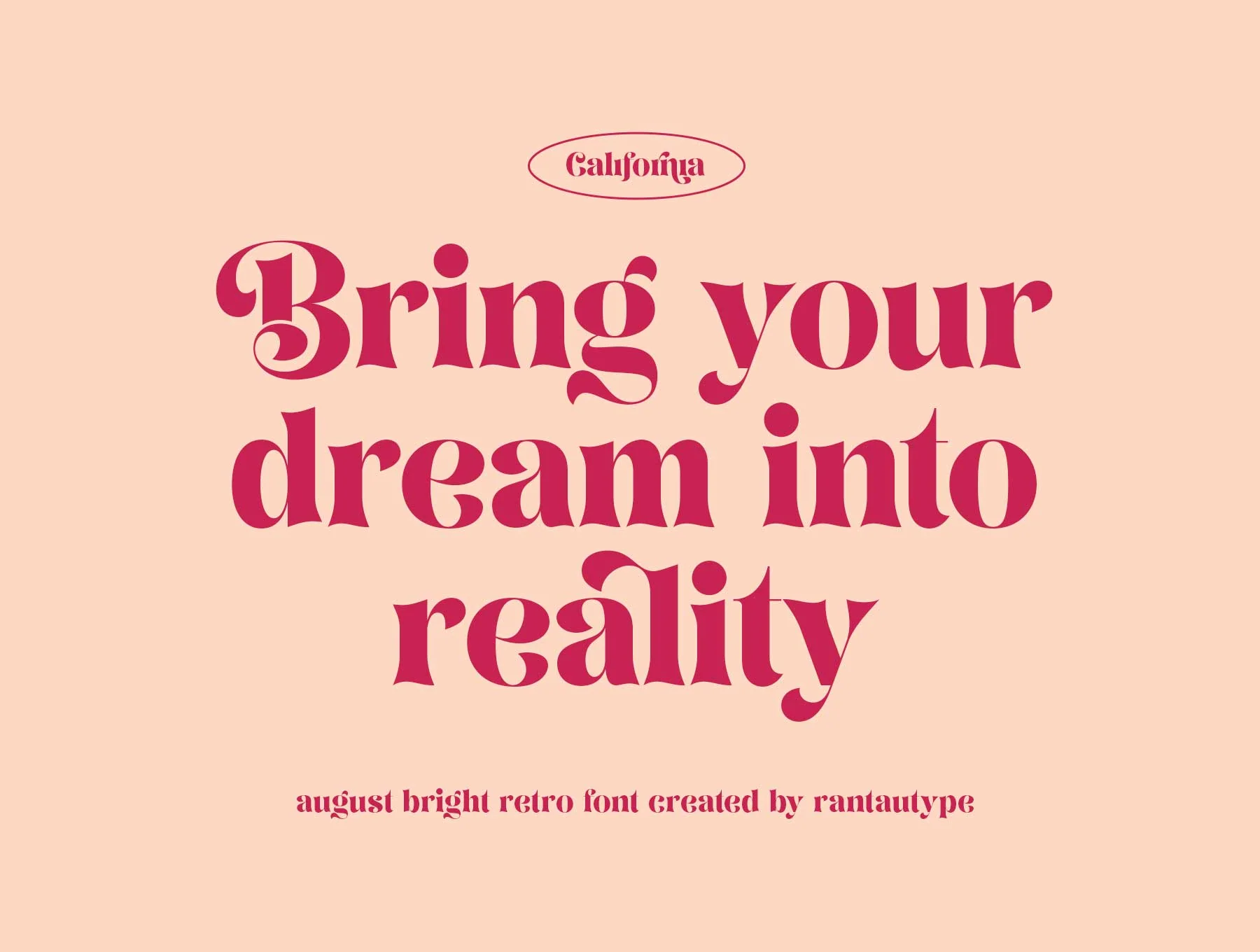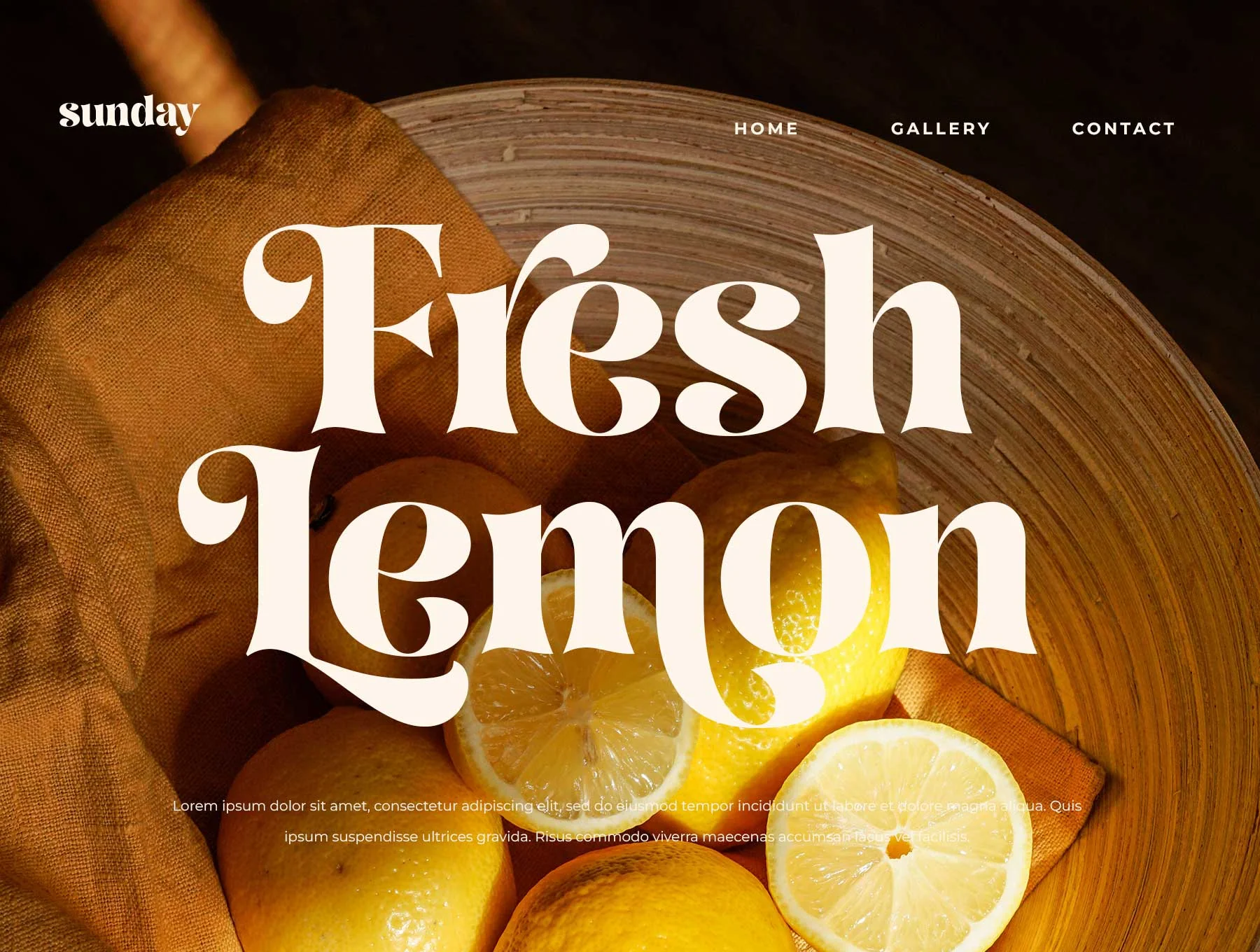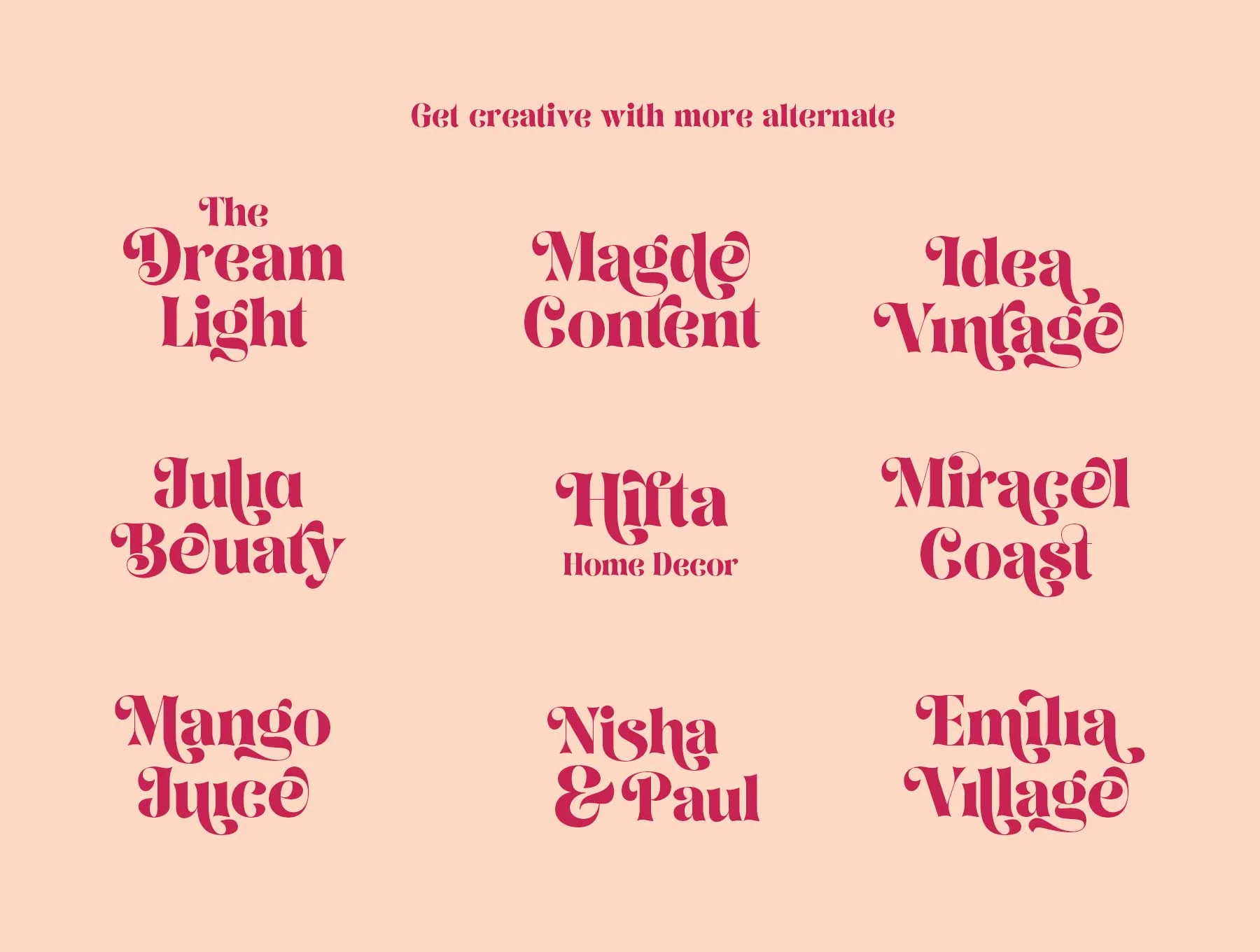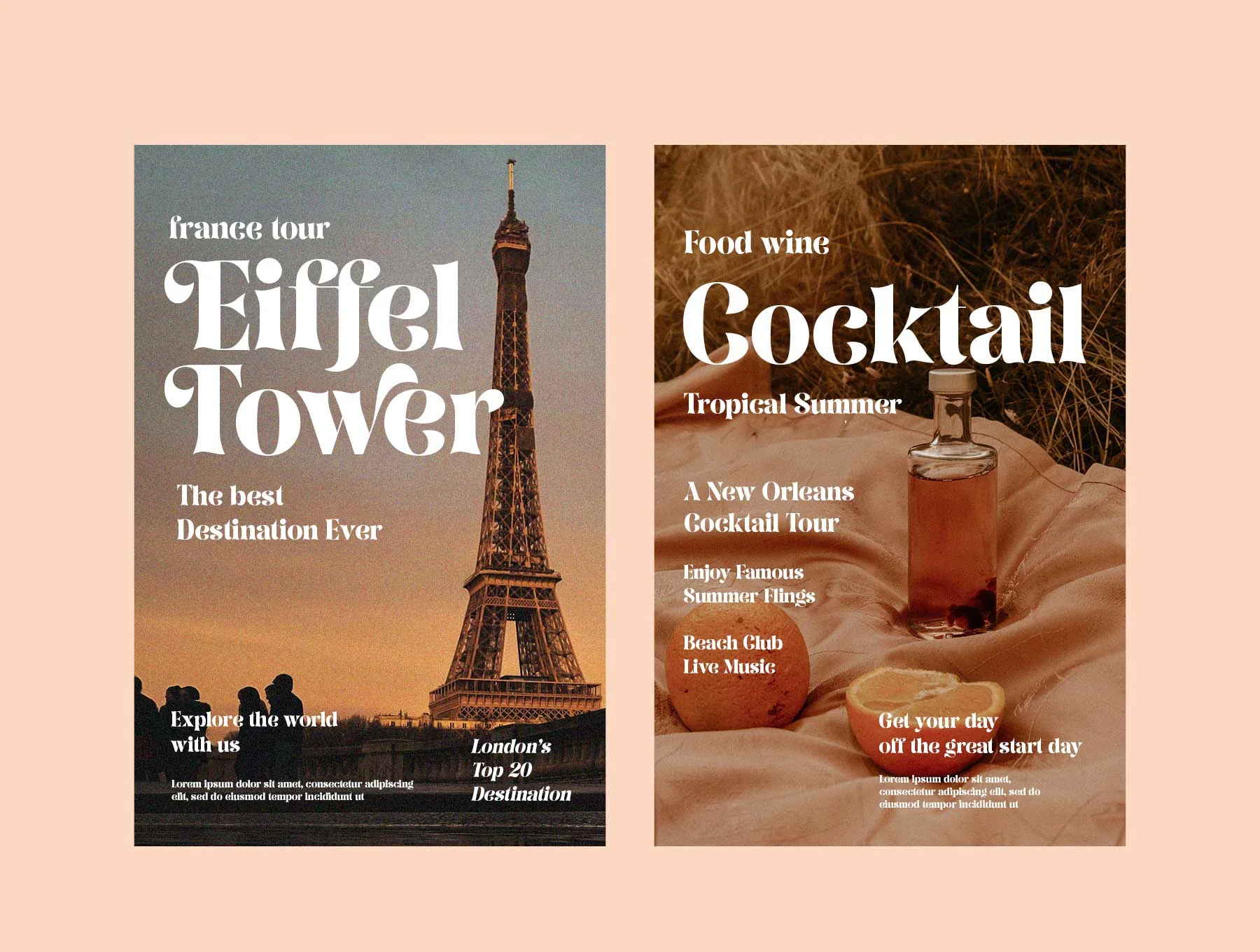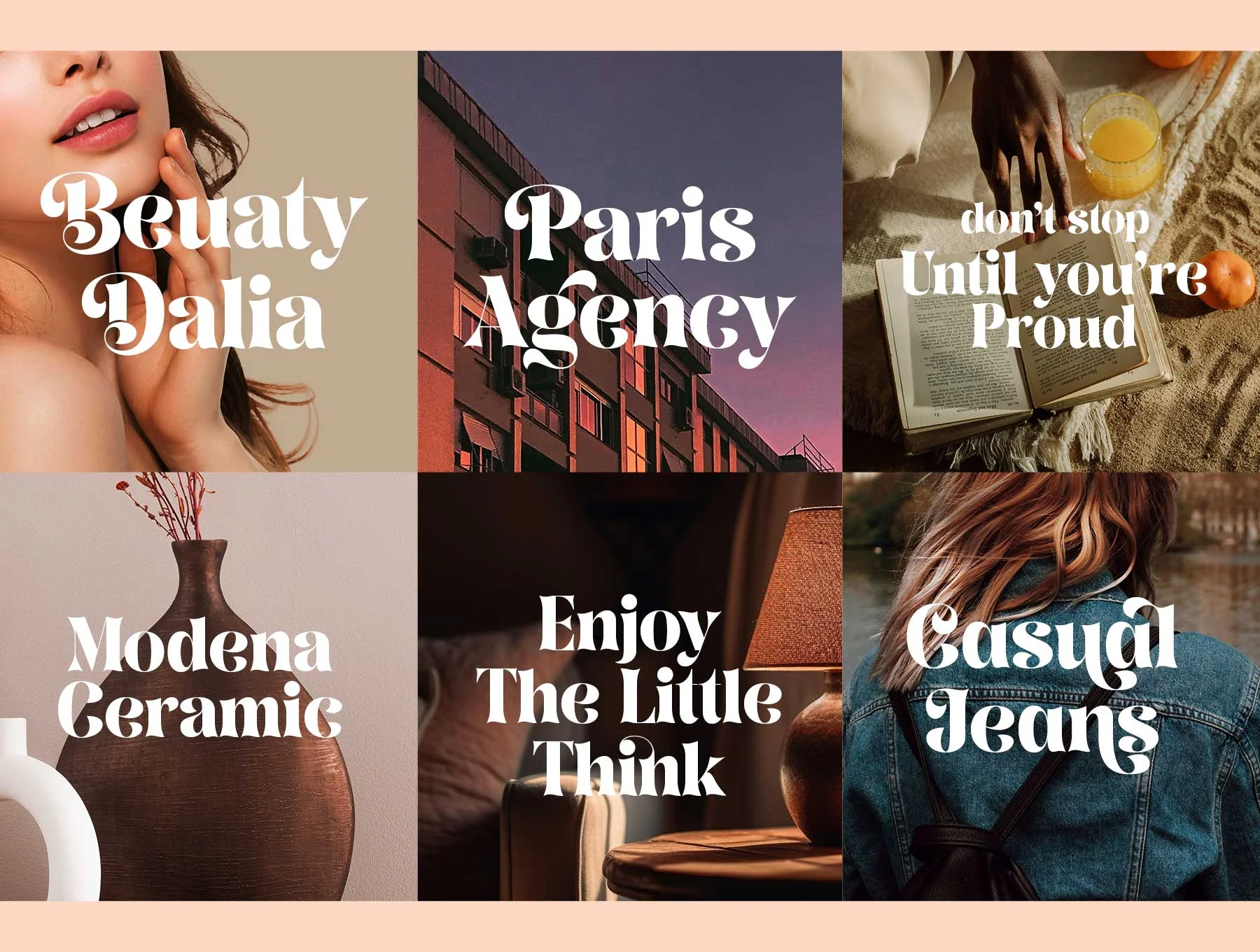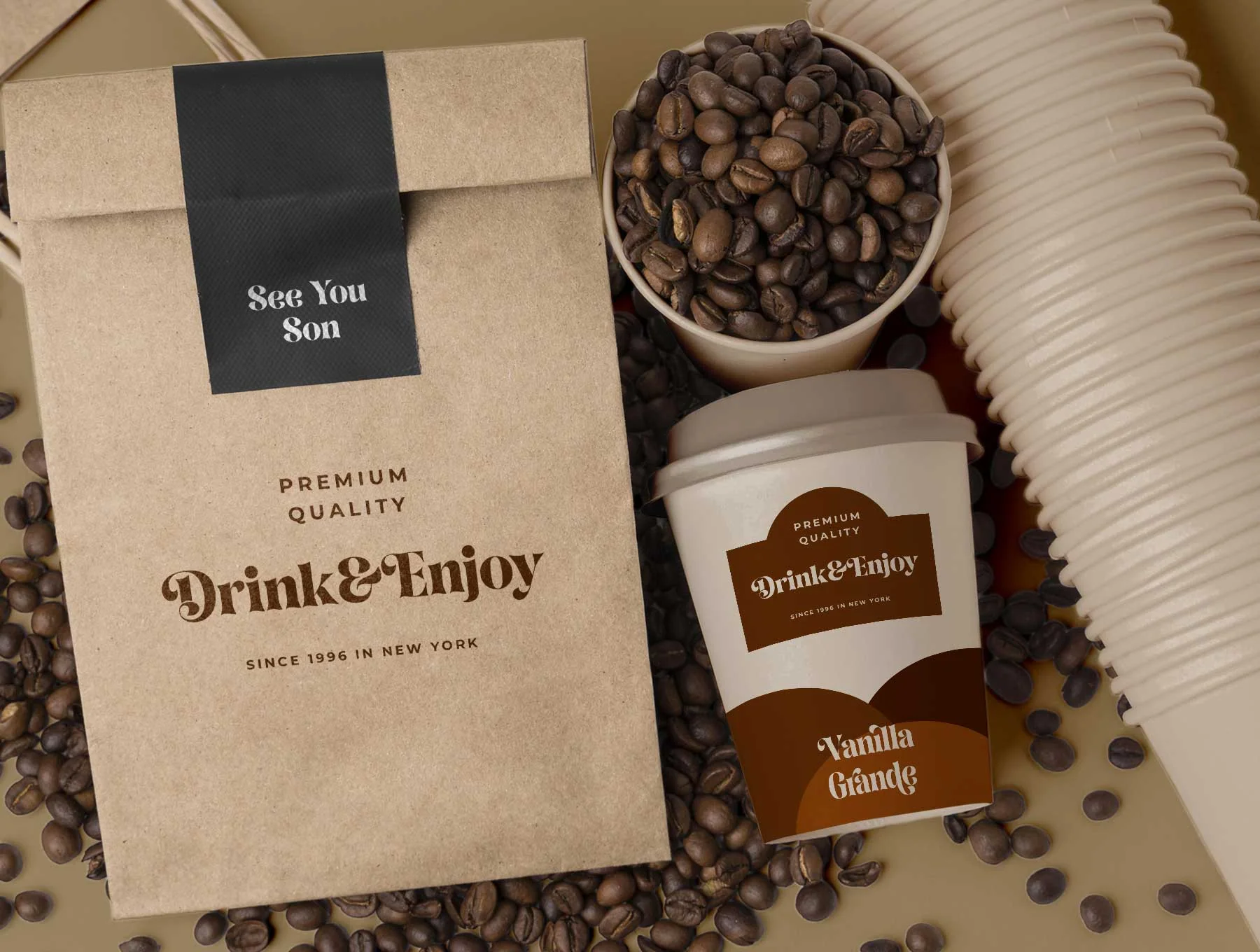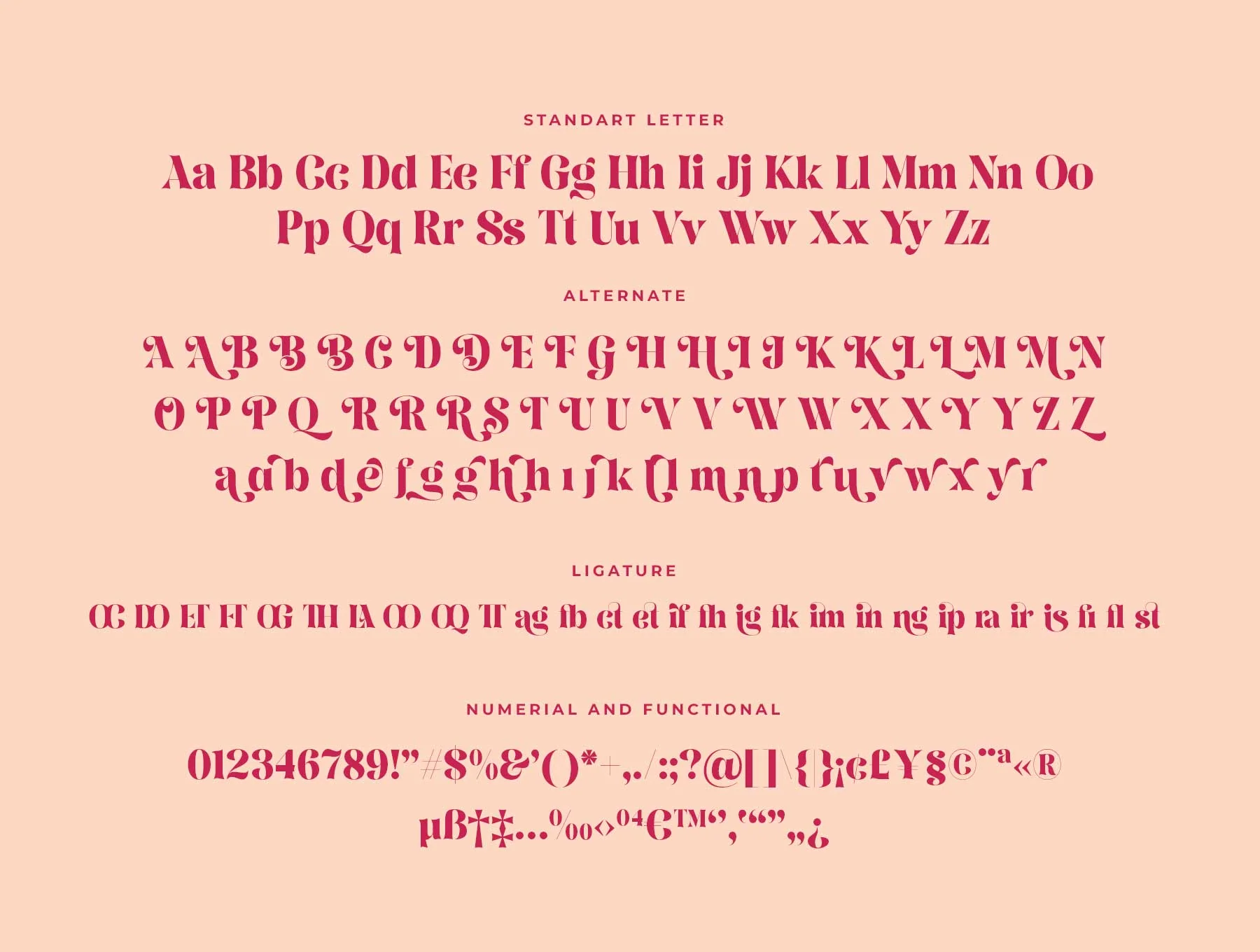
August Bright Retro Serif Font
August Bright Vintage Serif Typeface
Standard letters A–Z and a–z
Numerals and functional characters
Alternate glyphs and ligatures
August Bright is a playful, elegant serif with distinctive curves, alternates, and ligatures for eye-catching typography. Includes regular and italic styles in OTF, TTF, and WOFF, with uppercase/lowercase letters, numbers, punctuation, multilingual support, and easy PC/Mac setup. Use it in Adobe apps or Word for logos, titles, covers, branding, magazines, and stylish lifestyle designs.